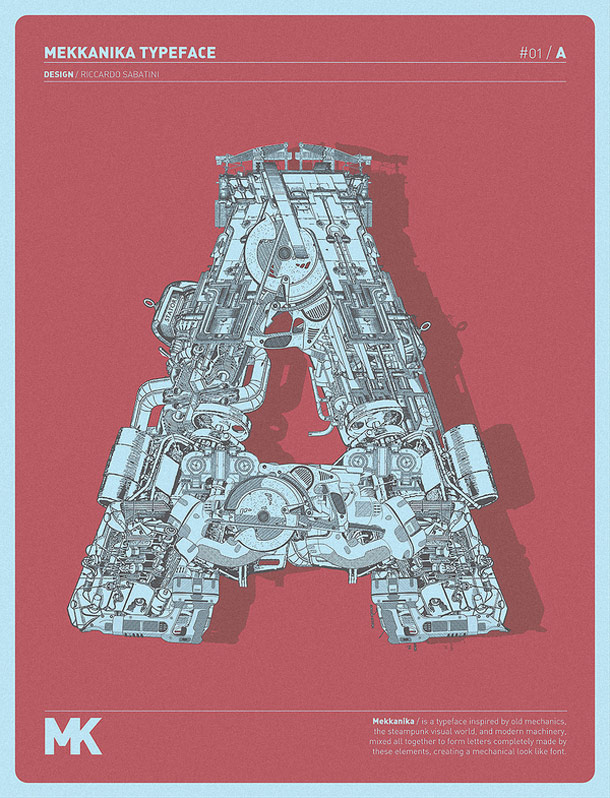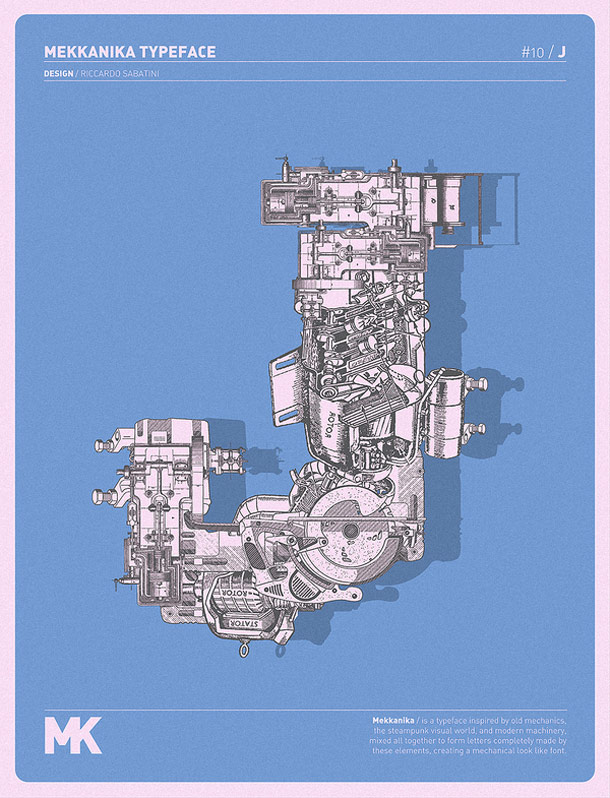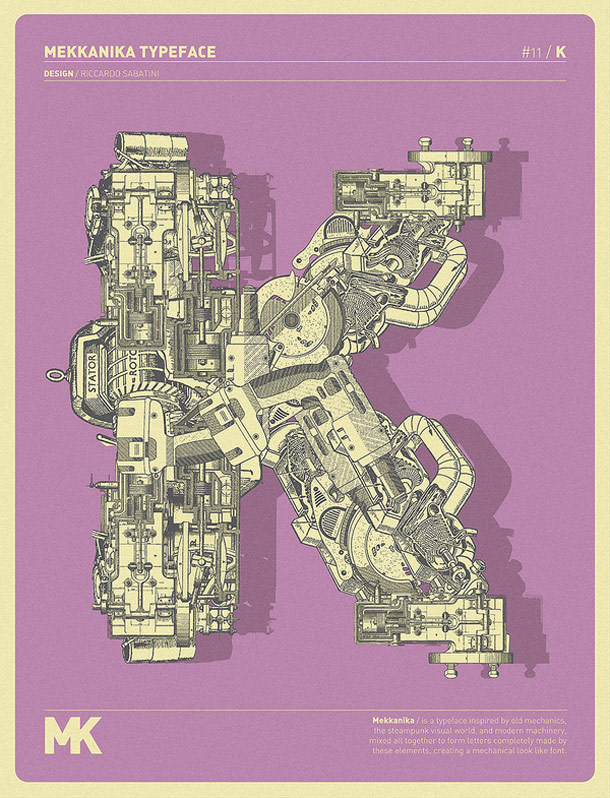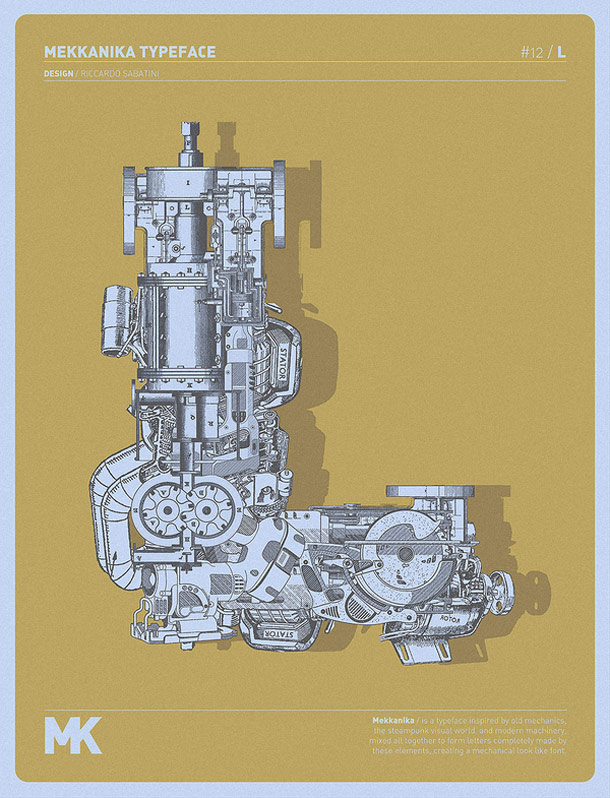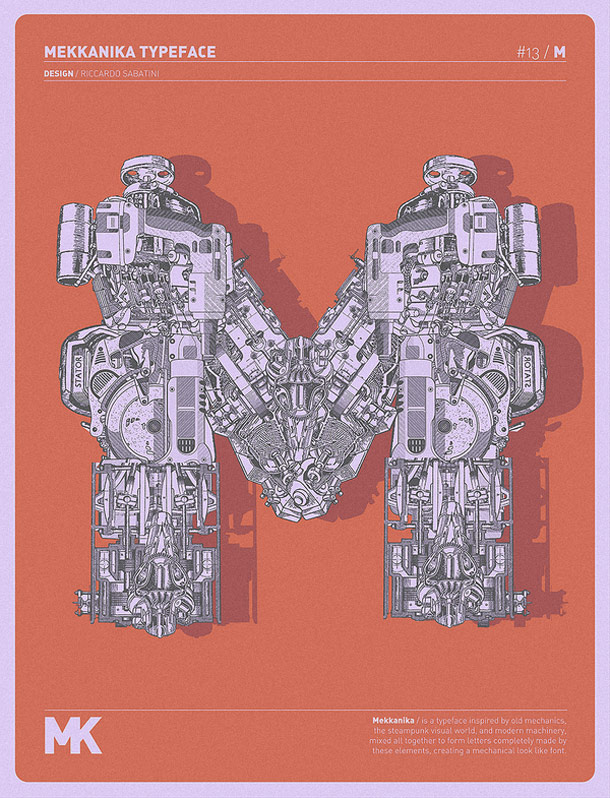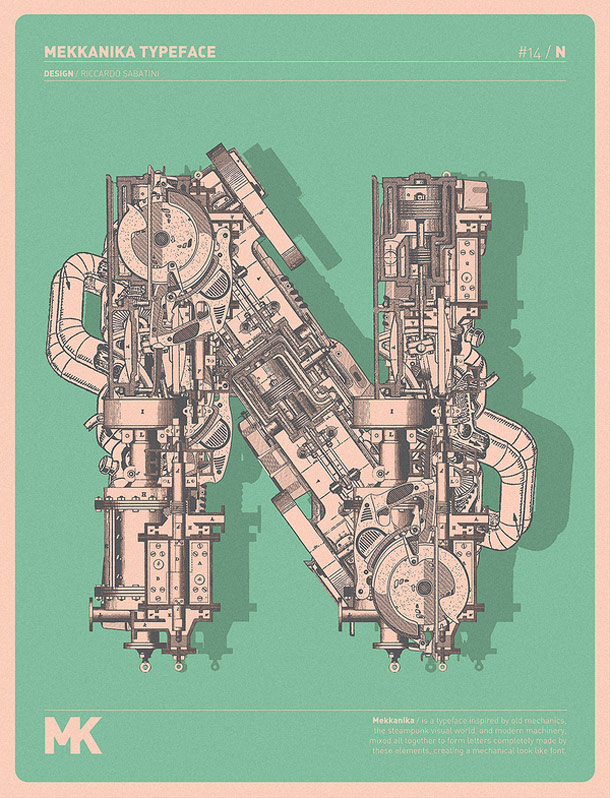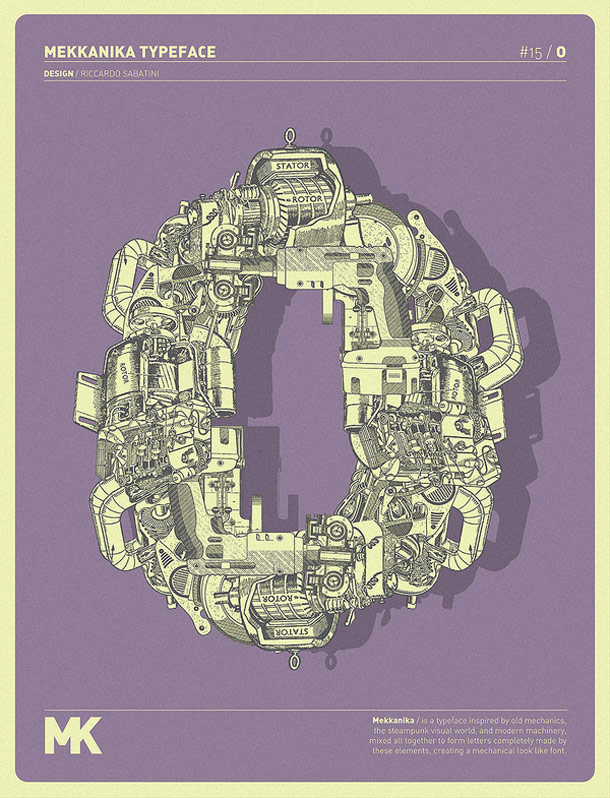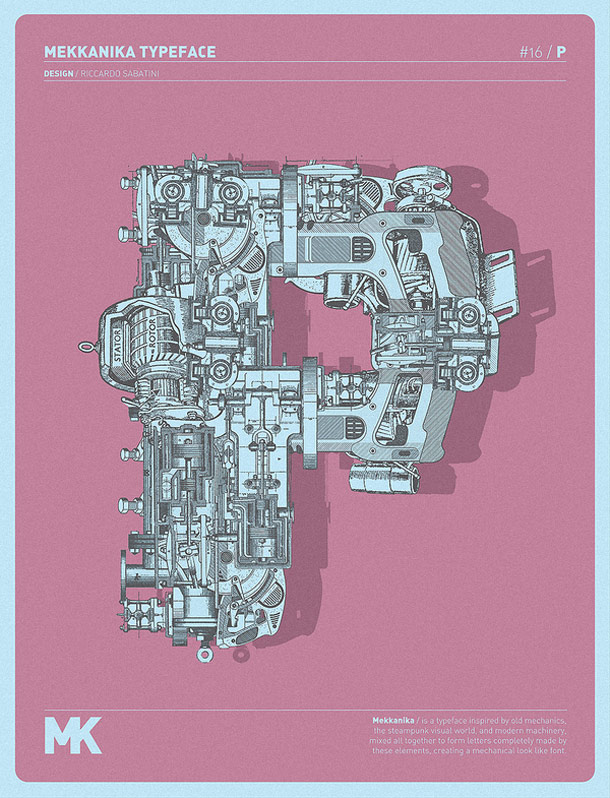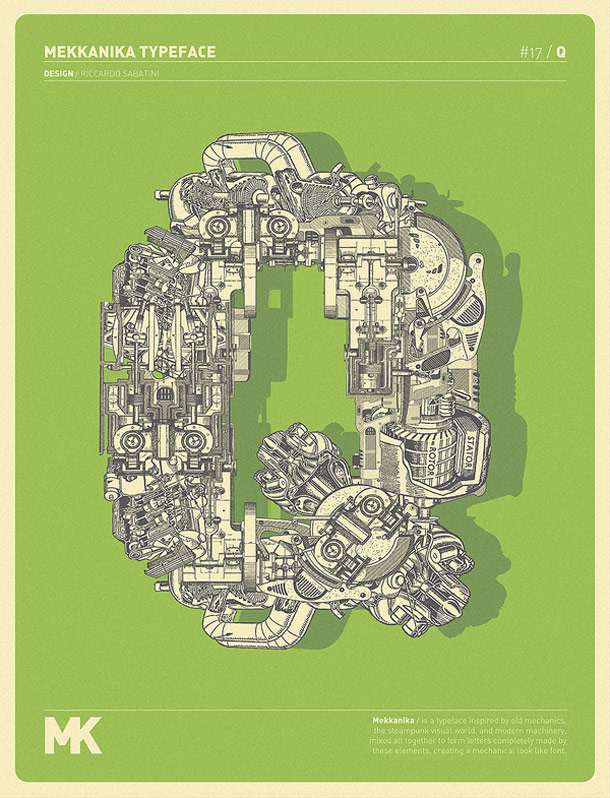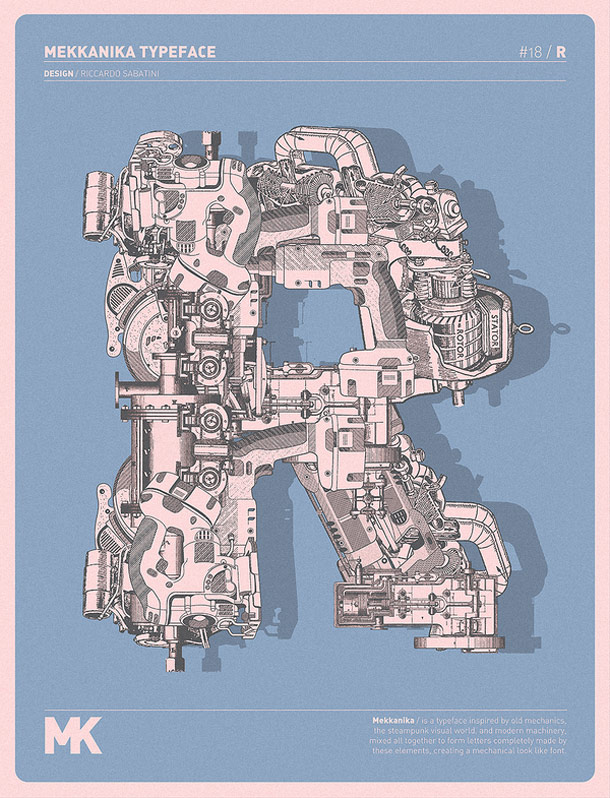
Mekkanika: Most Intricate Steampunk Typeface In The World
I remember back at the end of the ’80s when I was just starting high school and our biology class incorporated computers into our daily learning process. We had those bulky one piece Macs with a monochrome screen on them. It was the first time any of us really came into contact with fonts and an interface where you could type documents and print them. It was one of those “holy shit!” moments for me that I’ll remember for the rest of my life. We ended up using them quite a lot, but never for the stuff that I really wanted to do, which was to check out the OS more thoroughly to learn what it was capable of. We were pretty much just allowed to use them for typing our school assignments.
Back then, the fonts weren’t really that advanced even though they were beautiful to look at. There were like 10-12 of them available, and that was about it. Today there are obviously a lot more available than that, A LOT MORE! There are over a hundred thousand fonts that we are able to use, and they are all there to help us make our stuff look better. I recently stumbled over one of the most (if not THE most) intricate fonts (or typefaces) I have ever seen. I know it sounds uneducated to just say font when you really mean typeface and vice versa. However, most people don’t talk the design language, and they only refer to different types of fonts as… well, fonts.
The world’s most intricate typeface must be the Mekkanika typeface, and it’s more than insane. The detail of it is mind boggling, and I can’t imagine the process of putting this set together and how long it must have taken to do so. It’s another one of my “holy shit!” moments as a designer to see something this intricate become a true typeface font for people to actually use. Usually they are just a logo or an image created with a few letters, but this is the entire alphabet, character by character. If you ever want a moment of pure wonderment, this could be it, from a designer’s perspective that is. This typeface is created by talented designer and I guess, typefacer, Riccardo Sabatini. Huge props!